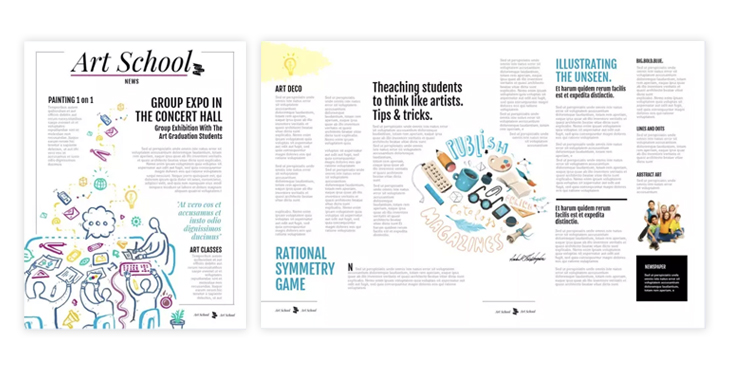
8 impactful newspaper fonts for your next headline
Newspapers have been around… well, since forever. We all have that memory of big piles of newspapers being distributed daily to newsstands across the country. But did you know that it wasn’t until the 1860s that reading newspapers became a ritual of the masses?
It had to do a lot with the Industrial Revolution and with the rotary press being used at a larger scale.
However, when it comes to news design, not much has changed over the years. We’re talking here mostly about print newspapers. Editorial design for newspapers has always been about beautifully designed layouts and incredible use of typography. Big, bold fonts used as logos, big headlines, and black and white images. Sounds very familiar, right?
The New York Times font
The first popular newspaper that comes to mind when we think about legendary use of fonts is The New York Times. Originally published in 1851, even today, NYTimes is probably one of the most popular newspapers in the world. And who doesn’t recognize this famous nameplate?
Probably one of the most recognizable newspaper logos in the world of news publishing.
Want to know a little piece of history about the famous newspaper font and its iconic logo?
Long before Gutenberg even invented the printing press, the Gothic or blackletter style, on which the logo is based on, is a style that was very popular in the 12th century, mainly used for European languages. We might say, this type of Gothic font is one that inspires trust, looks majestic and classical at the same time.
The New York Times newspaper font didn’t encounter major changes throughout the years. Except for losing the “daily” from its title, the NYT Magazine’s logo pretty much remained the same. The latest version was redrawn in 1967 by the designer Edward Benguiat, working with Louis Silverstein.
Legend says that when this version of the logo was unveiled, 1000 people reportedly canceled their subscriptions as a protest. Why? You’d say it wasn’t that big of a change. A simple revision to the classic logo made readers feel insecure. The New York Times dropped the period after the name.
Proof that when it comes to newspaper design and font usage, you must be very careful with your choice. Just as writers are cautious when they check your paper for plagiarism to maintain credibility, designers must ensure every visual detail aligns with the brand’s identity. Sometimes a font can become a brand’s most influential differentiator. It might impact your reputation more than you think.
What are some good newspaper fonts?
Abril Fatface
If this font gives you vintage vibes, then you’re right. Designers of Abril Fatface were heavily inspired by the French and English ads of the 19th Century. Clean bold curves with thin serifs give it a vintage classic, yet cool design. Perfect for a vintage newspaper.
Best paired with: Brandon Grotesque, Sanchez.
Similar fonts: Ambroise.
Rozha One
A great newspaper font, due to its letters’ thick and thin strokes, Rozha One is the perfect choice for large headlines. Can be successfully used for poster-sized publications. Here, Rozha One is used as a headline for a school newspaper template. But in a way, it’s the perfect font choice for a school publication, due to its playful curves.
Best paired with: Josefin Sans, Roboto, Oswald
Similar fonts: Bree Serif
Fjalla One
Our designers here at Flipsnack find Fjalla One as the perfect newspaper font for a business or economic related publication. A condensed grotesque sans-serif typeface that is both modern but classical, at the same time. You can almost picture this newspaper font for a publication like Japan Biz. It sort of has this Japanese vibe to it, don’t you think?
Best paired with: Josefin Sans (bold), Lato, Amasis
Similar fonts: Oswald.
Josefin Sans
Such a versatile font, Josefin Sans can be just the perfect font choice for many types of publications, and it’s exactly why we included it in our list of newspaper fonts. With a Scandinavian, geometric feel to it, Josefin Sans is perfect as a school newspaper title font or even as the title for a tech magazine. You see, this type of font is put in the spotlight when used for headlines. So, make sure to use it wisely.
Best paired with: Cardo, Abril Fatface, Playfair
Similar fonts: Brandon Grotesque
Fredericka The Great
Feeling nostalgic about the feel and smell of old, vintage newspapers? Then look no more, Fredericka The Great is a great choice when it comes to old newspaper design. Looking much like a hand-drawn font, Fredericka the Great gives some sort of old, English vibe. Whether you’re a history buff, genealogist or sports fan, you can use this font to design a newspaper about a certain period of time you are truly passionate about.
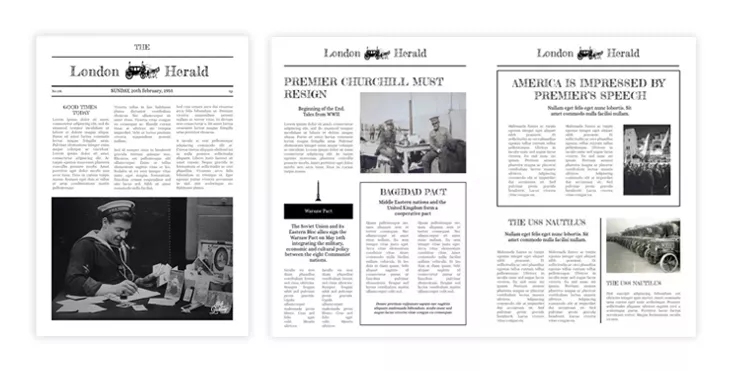
Best paired with: Open Sans Condensed, Alice
Similar fonts: Rough Draft
Playfair Display
Playfair Display is such a versatile typeface. It can be the perfect choice for a restaurant menu font, or as the perfect headline for a school newspaper. Used in italic, it gives you a handwritten vibe.
No matter how you want to use it, the best way to accompany Playfair Display as headline is to use Georgia for body text. Match made in editorial design heaven!
Pro tip: If you want to use Playfair Display then try 88px for headers.
Best paired with: Georgia, Lato, Raleway
Similar fonts: Bodoni MT
Coustard
Coustard is a display and text serif webfont perfect to use as a real estate newspaper font. Or, that’s what our designers here at Flipsnack think about this font. If you want to stick with our recommendations, simply edit this template with your own real estate listing, write some creative descriptions, publish aaaaand you’re good to go. Real estate agent of the year!
However, if you want to use Coustard for other editorial projects, be careful. Used in bold, Coustard can get a bit dramatic giving you Wild West vibes. But perhaps that’s the look you’re going for.
Best paired with: Monseratt, Roboto,
Similar fonts: Westside
Lobster
Yes, I know what you’re going to say. Lobster? Really?
You see, I know there’s been a hot debate around this font, however, like any other font, the context in which you’re using it matters the most. In this case, Lobster is perfect as a bold titling for a classical newspaper. If you’re passionate about stories, use this newspaper template to write about what truly moves you. We provide the layout, you tell the story! What a better time than today to start your own newspaper?
Best paired with: Arimo, Georgia, Roboto.
Similar fonts: Playfair Display
Conclusion